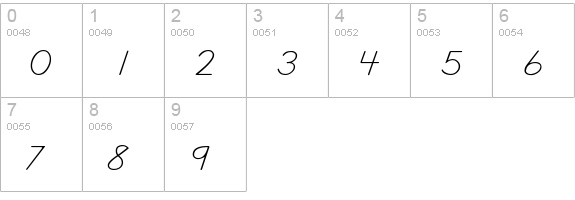
AbcDNManuscript font is a beautifully crafted typeface that exudes elegance and sophistication. Its smooth curves and balanced proportions make it perfect for a wide range of design projects, from invitations to branding to editorial layouts. The flowing, handwritten style of this font adds a touch of personality and warmth to any text it graces. What's even better is that AbcDNManuscript font is available for free download at FontsMarket.com. Yes, you read that right - this stunning font can be yours at no cost at all. Whether you're a graphic designer looking to enhance your projects or a DIY enthusiast wanting to add a special touch to your creations, AbcDNManuscript font is the perfect choice. Don't miss out on this fantastic opportunity to elevate your designs with this fantastic typeface. Download AbcDNManuscript font today and let your creativity soar!